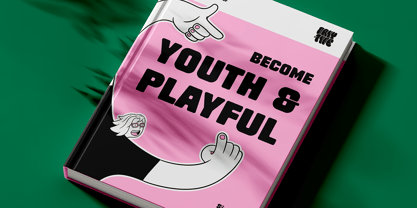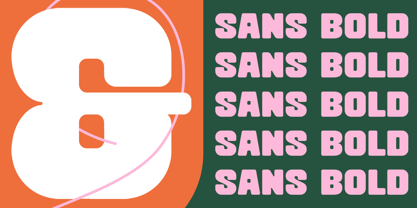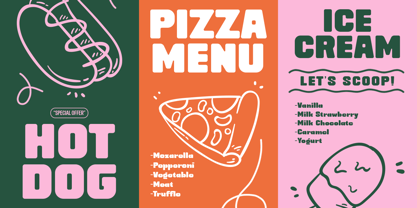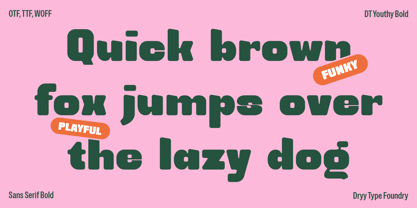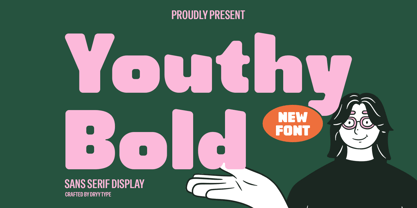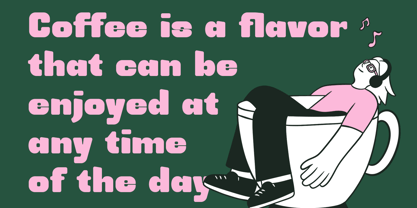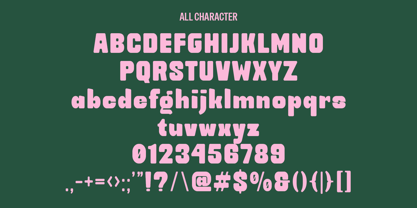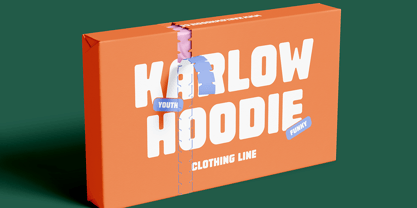
DT Youthy Bold
The DT Youthy Bold Font Family was designed by Rian Dryana and published by Dryy Type. DT Youthy Bold contains 1 styles. More about this family
DT Youthy Bold
DT Youthy Bold is a font inspired by the spirit of youth, so that in every form it looks very playful and dynamic. The font I created is meaningful & very versatile, suitable for various designs, elevating it to the highest level. Add this font to your favorite creative ideas and see the results!
Features: Uppercase, Lowercase, Alternate, Ligature, Numeric, & Multilingual Support